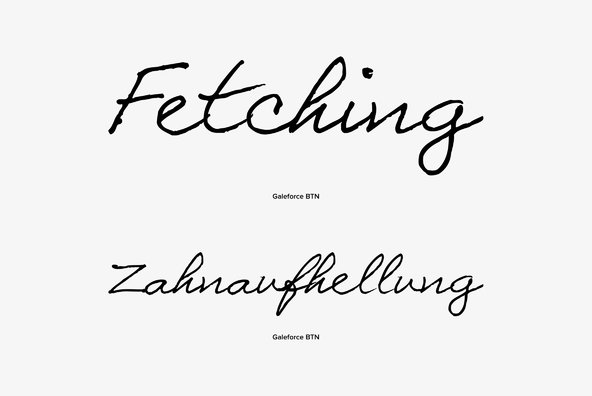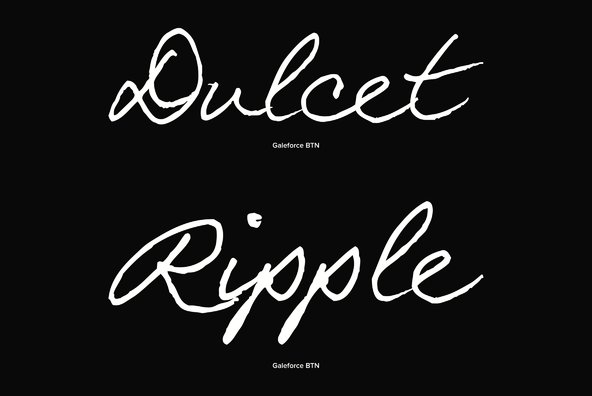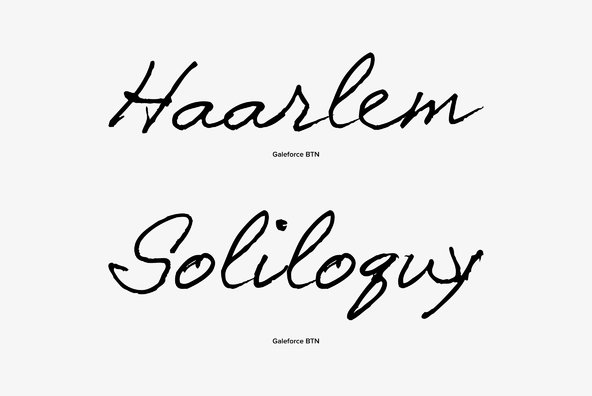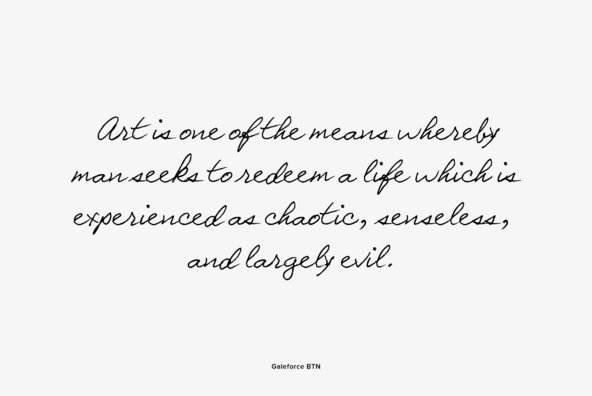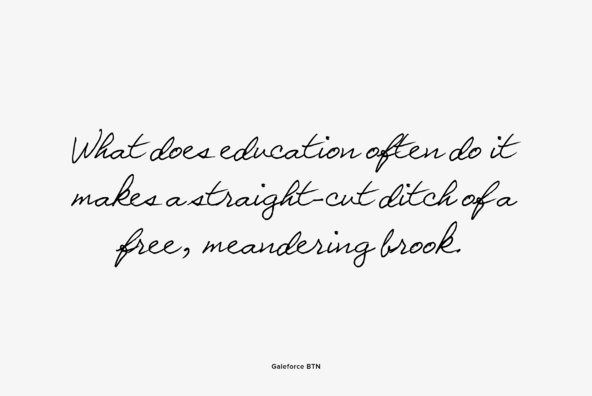
Galeforce
Foundry: Breaking The Norm
Galeforce blew into town and has staked her claim with this powerful handwriting typeface. Let 'em know your mean business with this typeface! Use it to jot off an urgent note or fire a collegue!